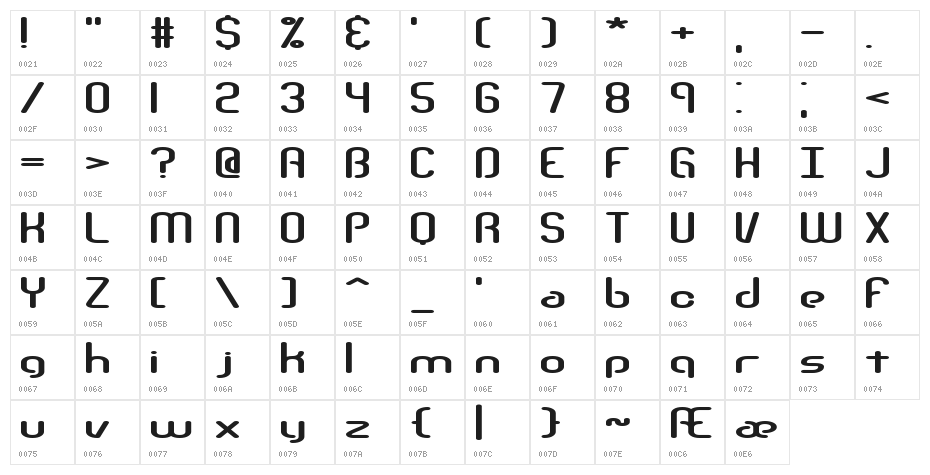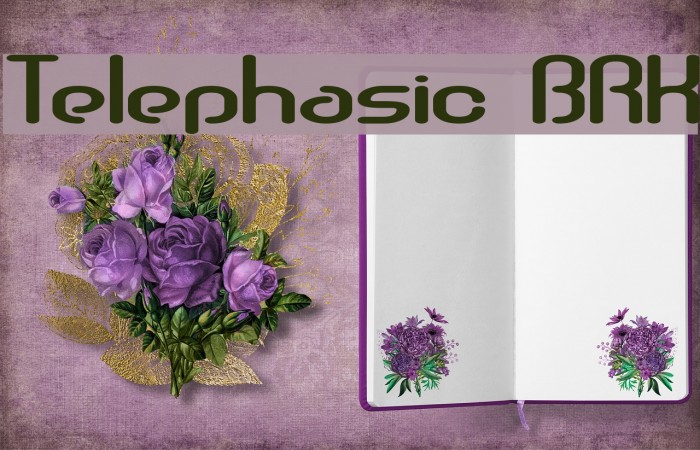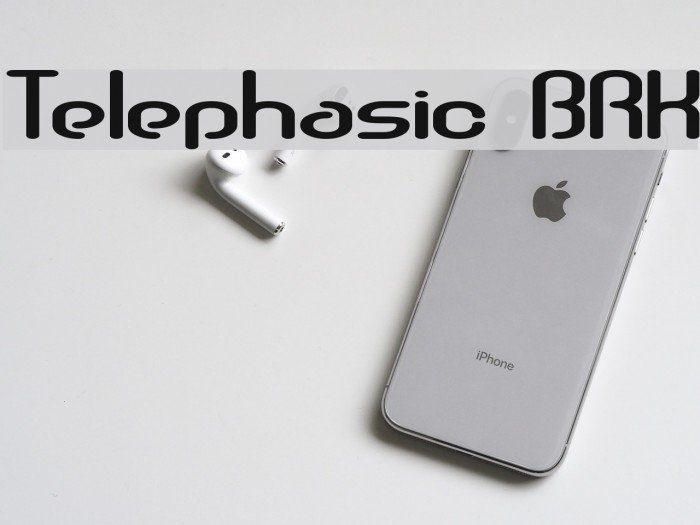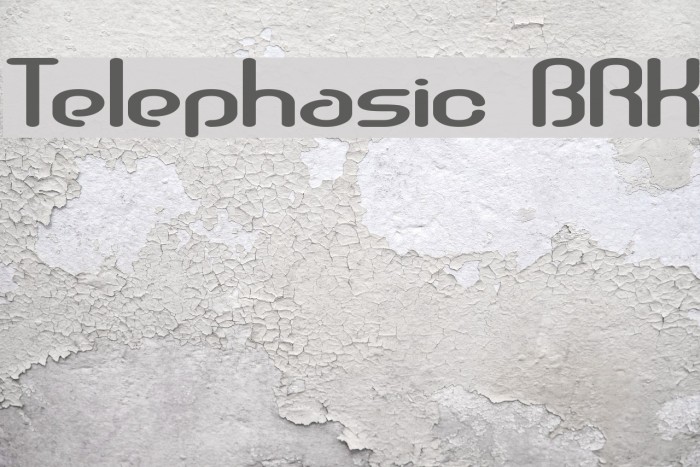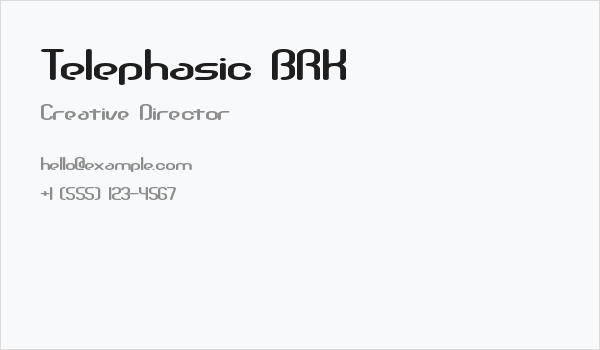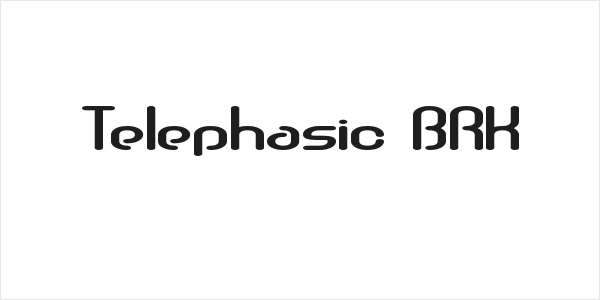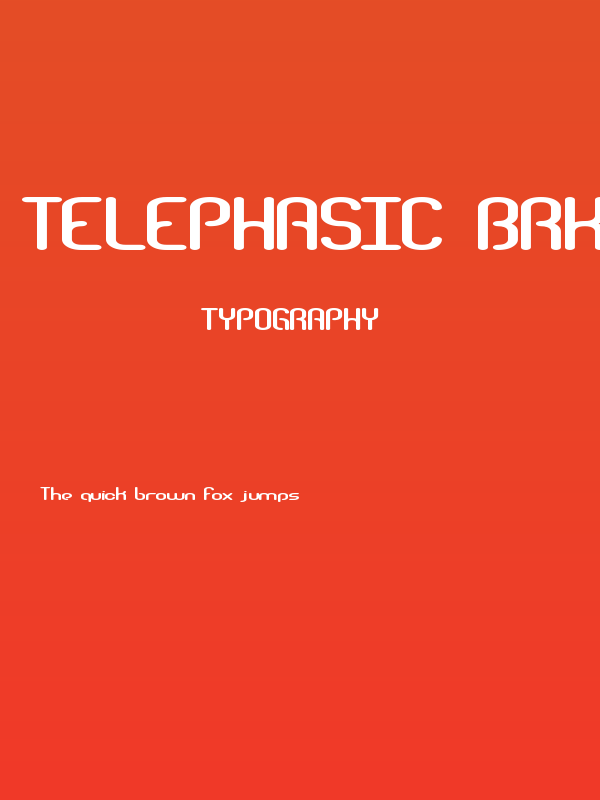
Telephasic BRK Font
Telephasic BRK Description
This font features a modern and futuristic design with rounded edges and a geometric structure. The characters are uniform in width, creating a cohesive and streamlined appearance. The uppercase letters are bold and prominent, while the lowercase letters maintain a consistent style that complements the overall design. The numerals are clear and easy to read, with a distinct style that matches the alphabetic characters. Special characters are included, maintaining the same rounded and geometric aesthetic. This font is ideal for projects that require a contemporary and sleek look.
| Proposed Projects | Ideal for tech branding, digital interfaces, modern advertising, and futuristic designs. |